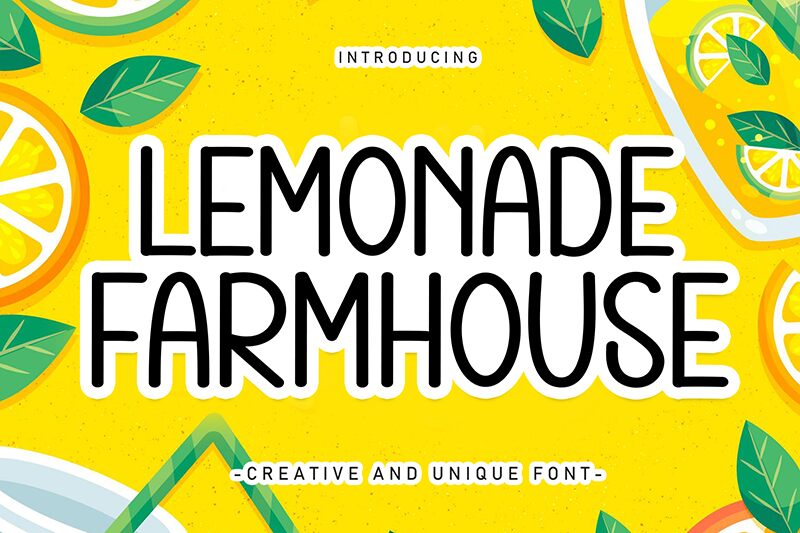
Lemonade Farmhouse
Lemonade Farmhouse font is a free handwritten font by Andi Moz, a designer whose background in geometric and paste influenced this minimalist aesthetic display font. Thick heavy main strokes meet strikingly unusual horizontal edges and endings. Condensed lettered glyphs make the shapes appear long, modern, and clean.
Lemonade farmhouse’s application range is nearly infinite. Use it for advertising banners, posters, social media covers, packaging designs for food brands especially bakeries or juice brands. Enjoy using it in branding projects for restaurants or in printing with invitations, greeting cards baby announcements ideas etc.